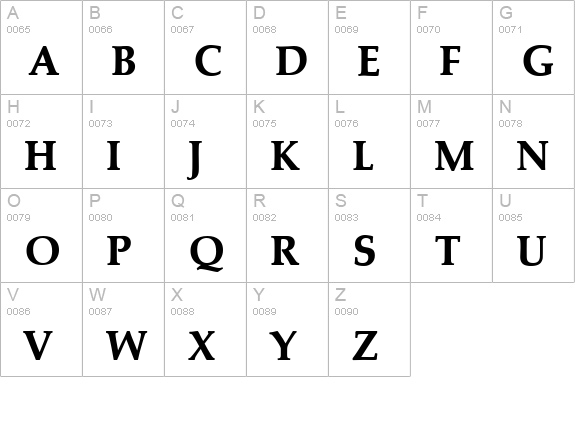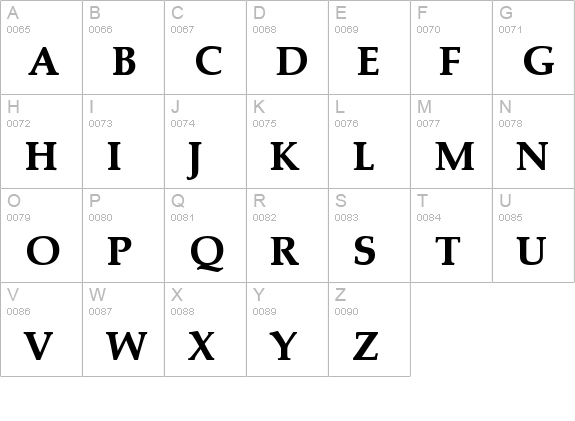
MarathonSerial-Xbold-Regular is the standard, neutral variant in the MarathonSerial typeface family \xE2\x80\x94 well suited to general body text, paragraphs, and standard typographic work.
MarathonSerial-Xbold-Regular font is a bold and versatile typeface that exudes strength and modernity. Its clean lines and sharp edges make it perfect for headlines, posters, and other design projects that require a strong visual impact. The font's bold weight commands attention and ensures readability even at small sizes. Designed with precision and attention to detail, MarathonSerial-Xbold-Regular font is a versatile choice for designers looking to make a bold statement. Whether used in print or digital media, this font is sure to capture the audience's attention and leave a lasting impression. Best of all, MarathonSerial-Xbold-Regular font is free to download at FontsMarket.com, making it accessible to designers of all levels. Don't miss out on this opportunity to enhance your projects with this powerful and impactful typeface. Download MarathonSerial-Xbold-Regular font today and take your designs to the next level!